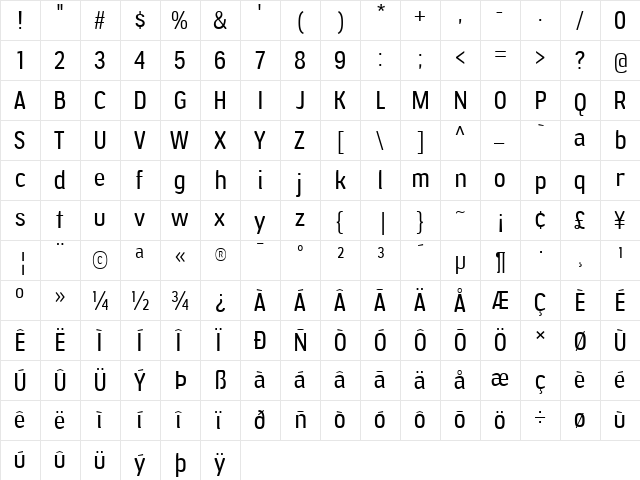
Jesaya Free Regular
Design Context for Jesaya Free Typeface
Jesaya Free is a composed and adaptable typeface that performs quietly and consistently across a wide range of design contexts.
Pro Tip: Pair Jesaya Free with a font of contrasting weight or personality to build a more expressive typographic hierarchy.